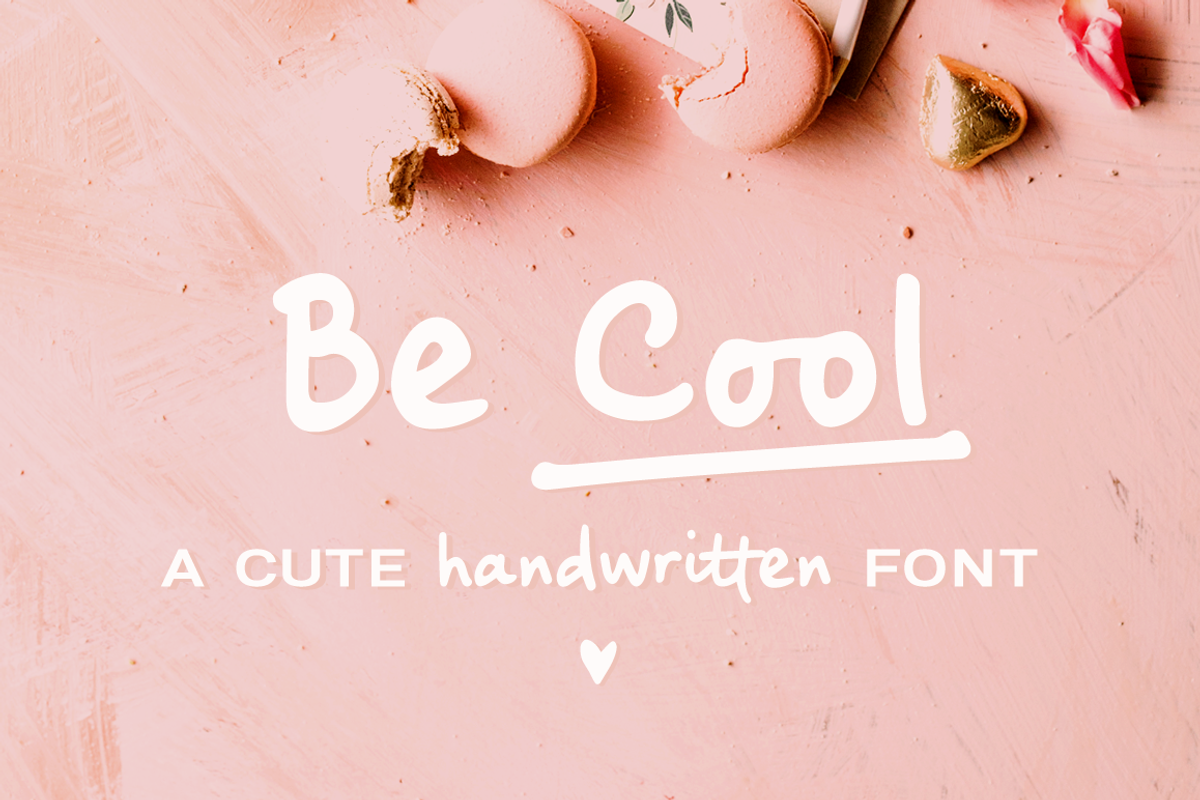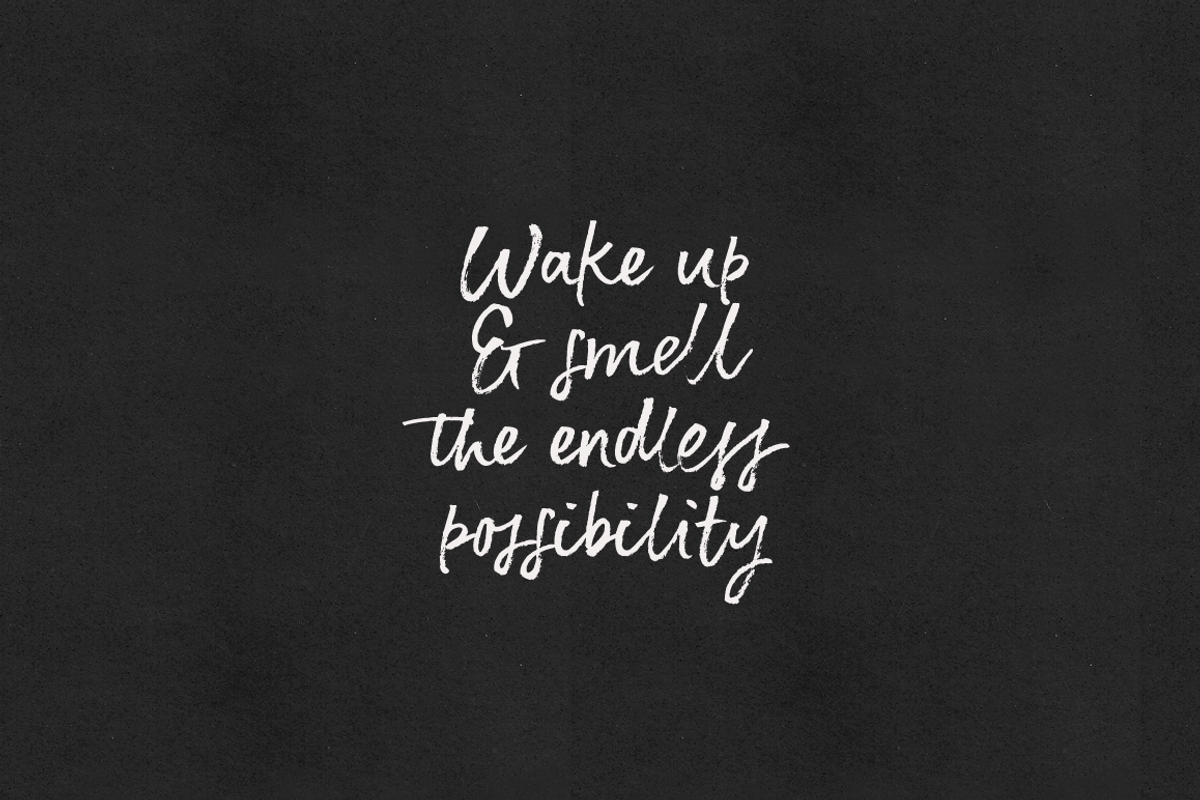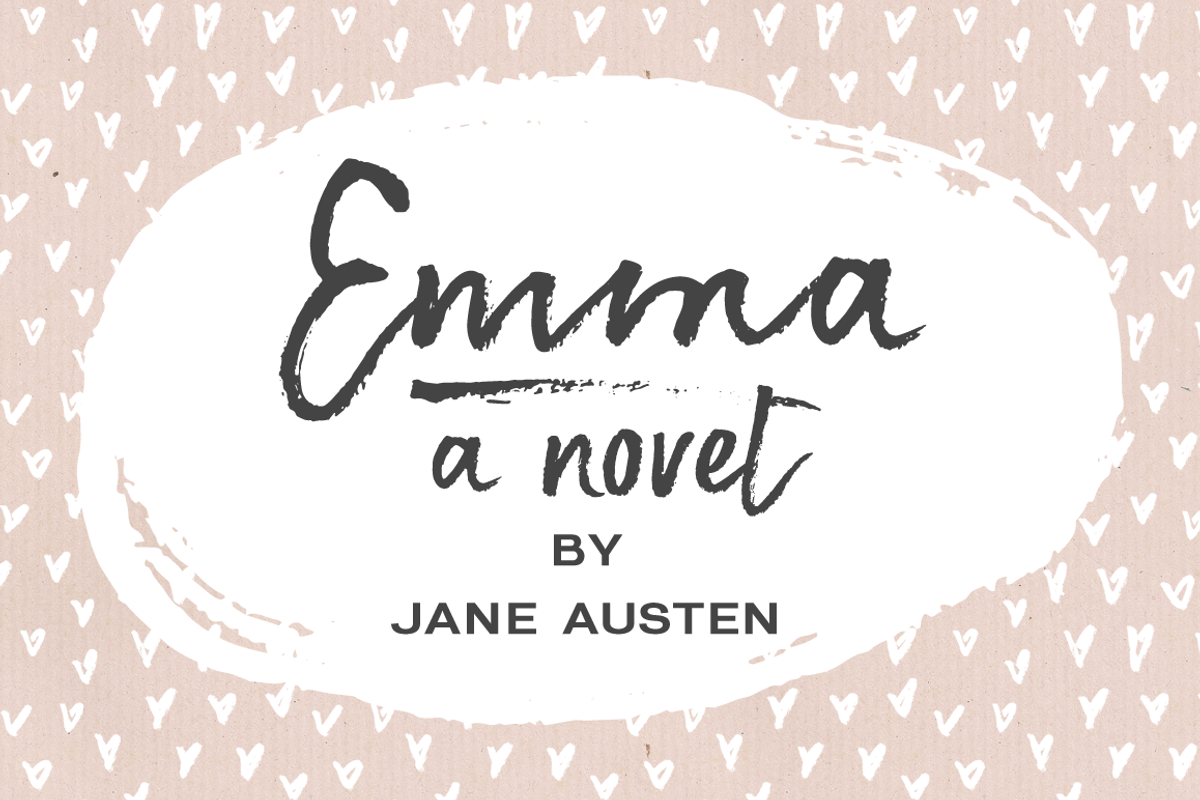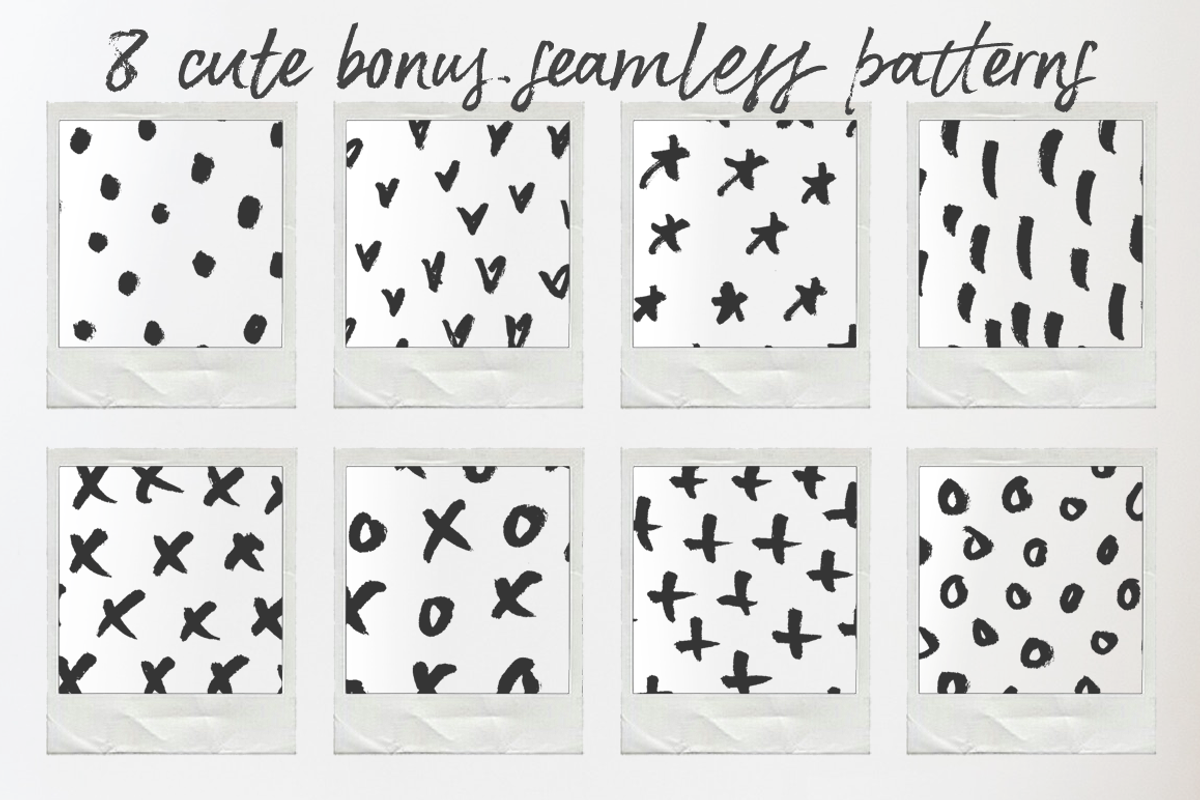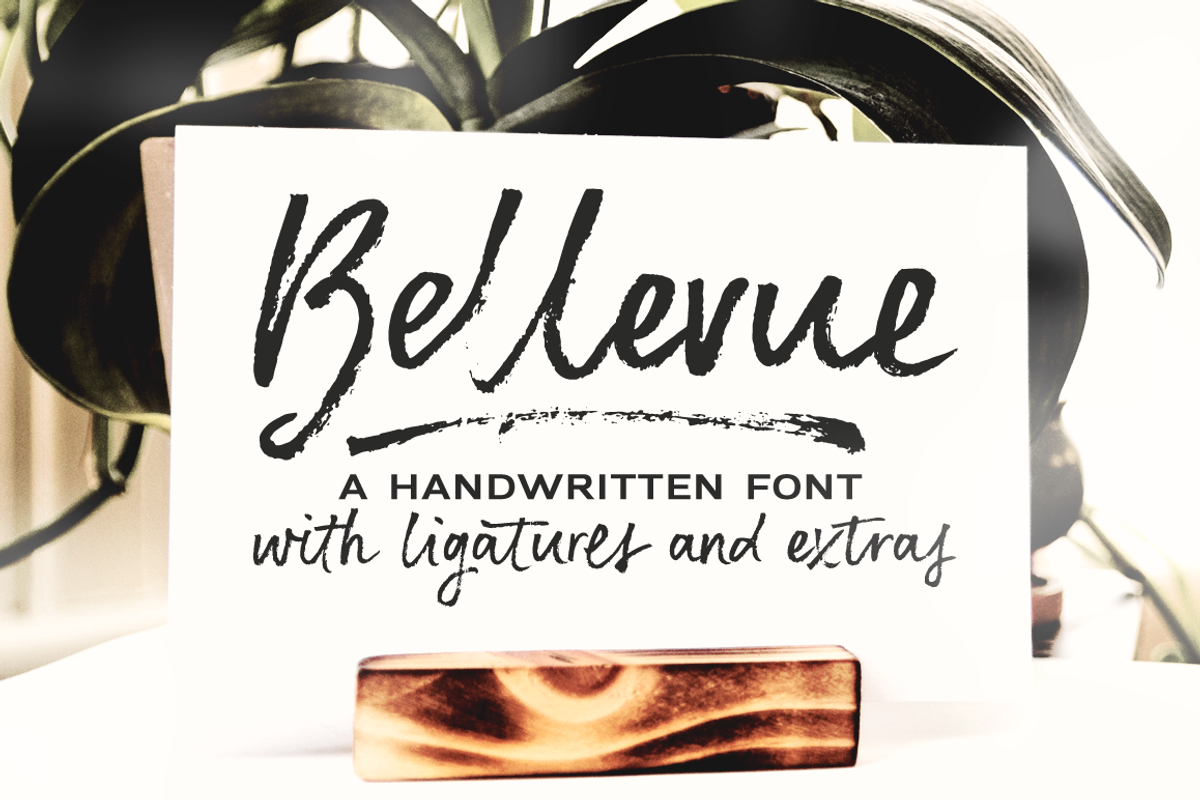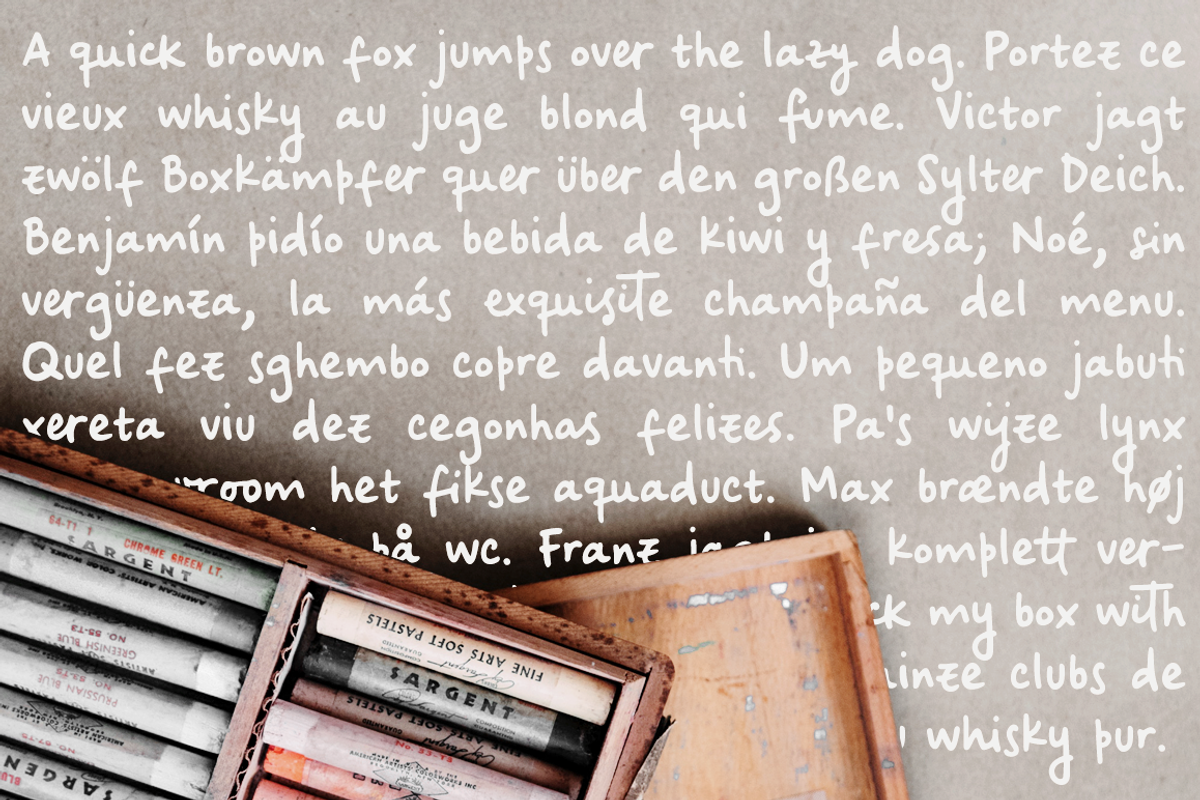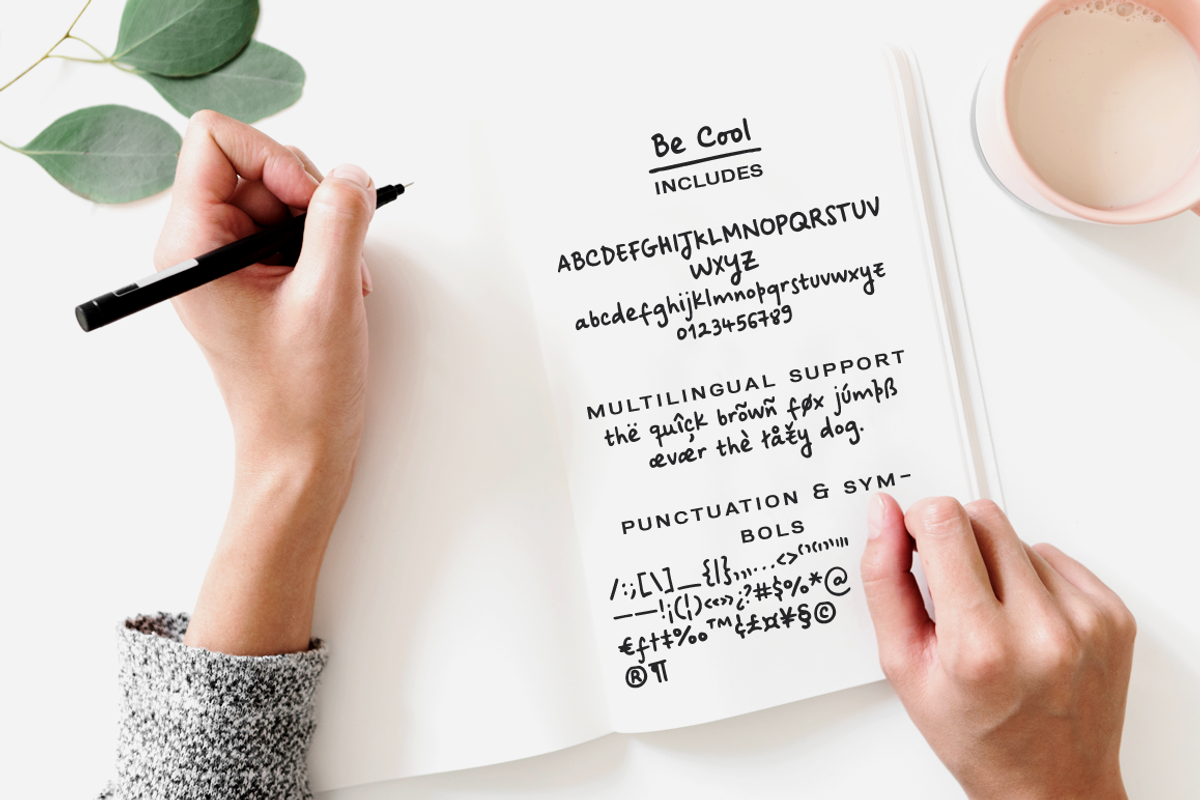
Farewell Angelina, a serif font:
Big River, a font duo:
Bellevue, a textured brush font:
Siren Song, a textured handwritten font:
Be Cool, a handwritten font:
Honululu, a handmade font family:
Floret, a brush font:
Pitch or Honey, a handmade font trio:
Popless, a handmade font duo:
Soft Notes, a blackletter SVG font:
These Days, a brush SVG font:
Unika, a font and texture set: